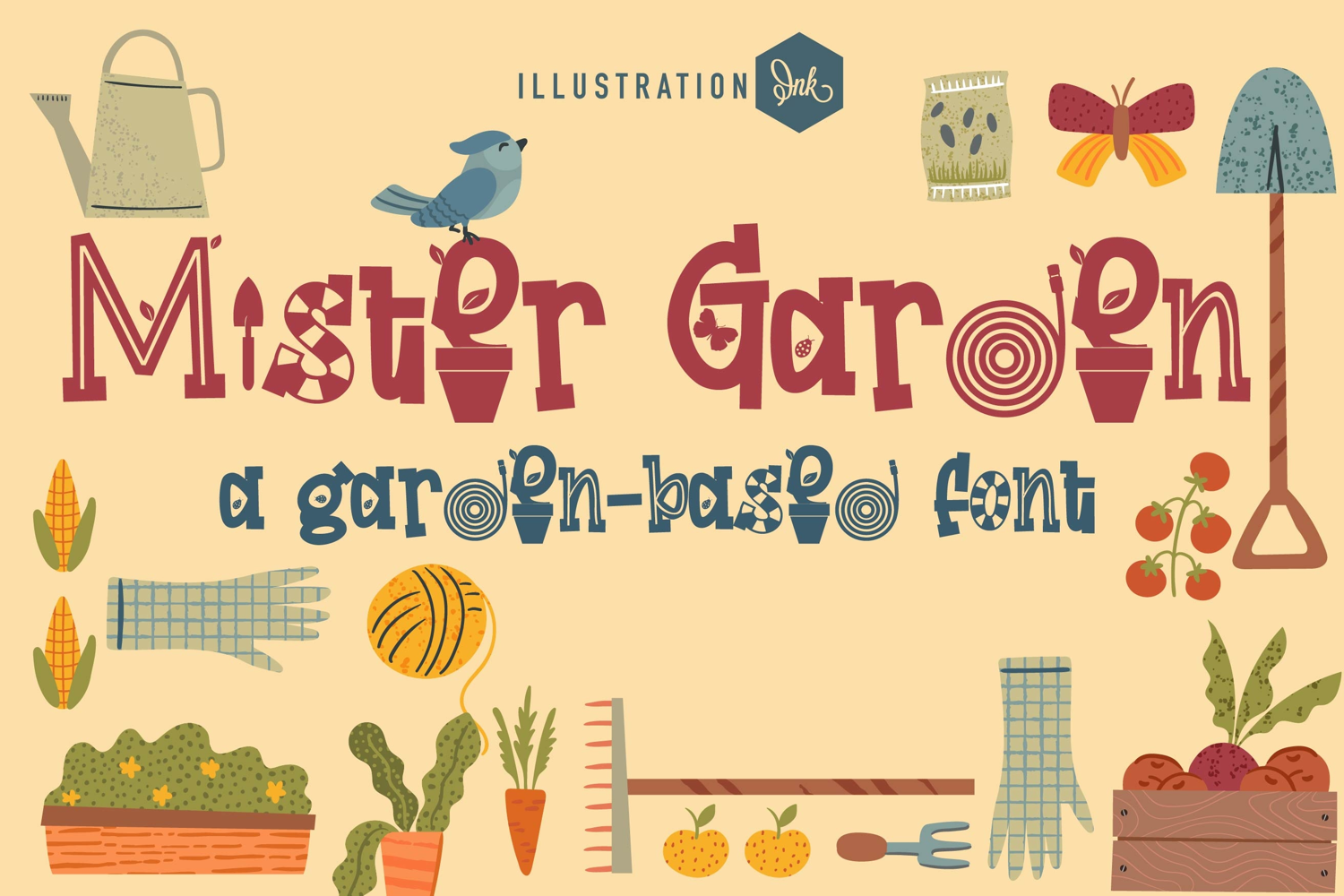
Mister Garden More Font Family
This hand-crafted font is a whimsical, hand-crafted font sporting florals with six variations.
• The letters are not perfectly uniform in size or shape.
• There may be slight variations in the spacing between letters and words.
• The font may have a "wiggly" or "squiggly" appearance.
• The font may be difficult to read at small sizes.